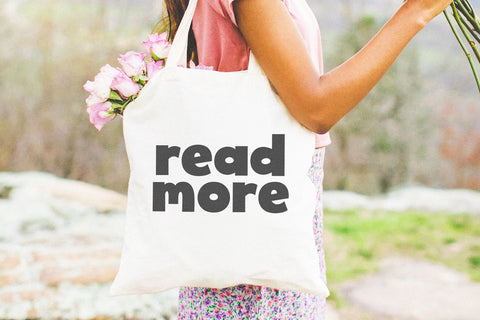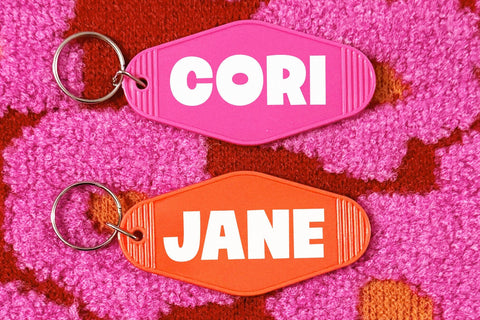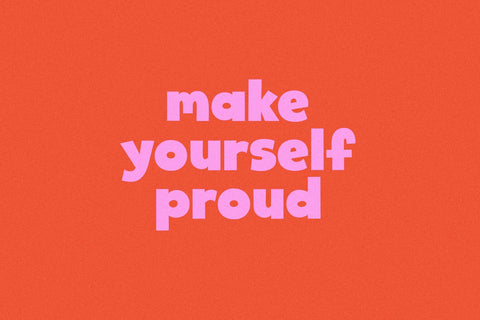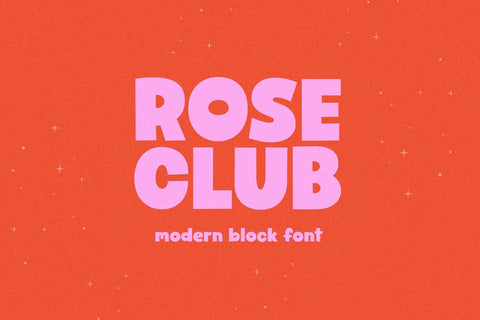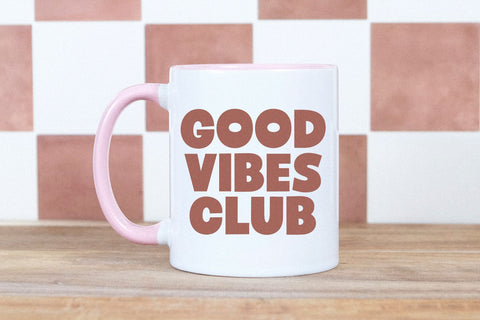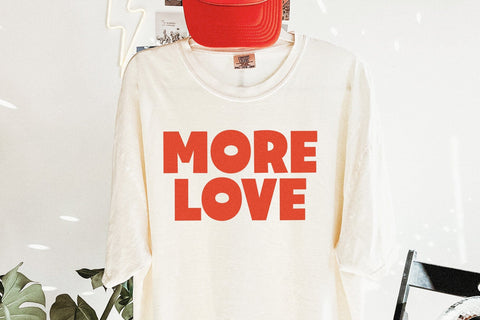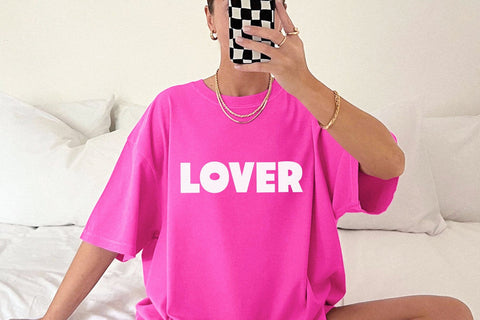
Rose Club - Cute Bold Font
Rose Club is a cute and chunky font.
This font is perfect for cricut projects, logos, shirts, svg files, planners, stickers, quotes, social media and more!